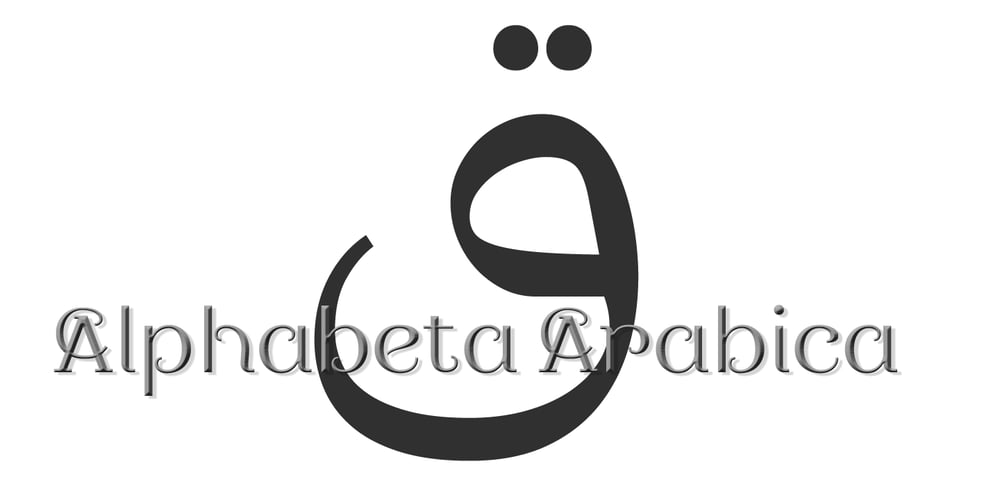
Parvin
Parvin font
Parvin Font Family was designed by Naghi Naghashian and published by Naghi Naghachian. Parvin contains 1 styles and family package options. Parvin is a new creation of Naghi Naghashian. Parvin design fulfills the following needs: A. Explicitly crafted for use in electronic media fulfills the demands of electronic communication. A modern interpretation of Naskh which was invented as calligraphic style by Ebn Moghleh, a Persian savant in ninth century. This script is the most widely used, and its popularity has increased through the centuries. Most recently, it has served as a basis for the typefaces that are in use today. B. Suitability for multiple applications. Gives the widest potential acceptability. C. Extreme legibility not only in small sizes, but also when the type is filtered or skewed, e.g., in Photoshop or Illustrator. Parvin’s simplified forms may be artificial obliqued in InDesign or Illustrator, without any loss in quality for the effected text. D. An attractive typographic image. Parvin was developed for multiple languages and writing conventions. Parvin supports Arabic, Persian and Urdu. It also includes proportional and tabular numerals for the supported languages. E. The highest degree of calligraphic grace and the clarity of geometric typography. This typeface offers a fine balance between calligraphic tradition and the Roman aesthetic common in Latin typography.